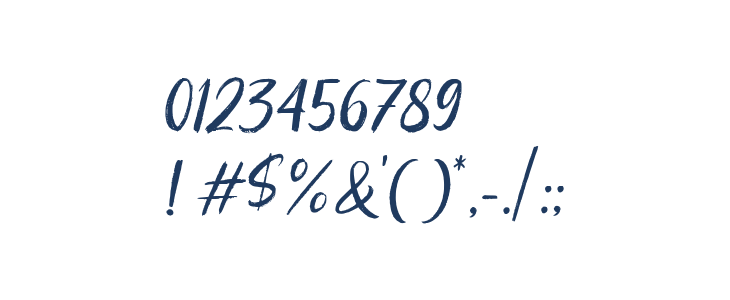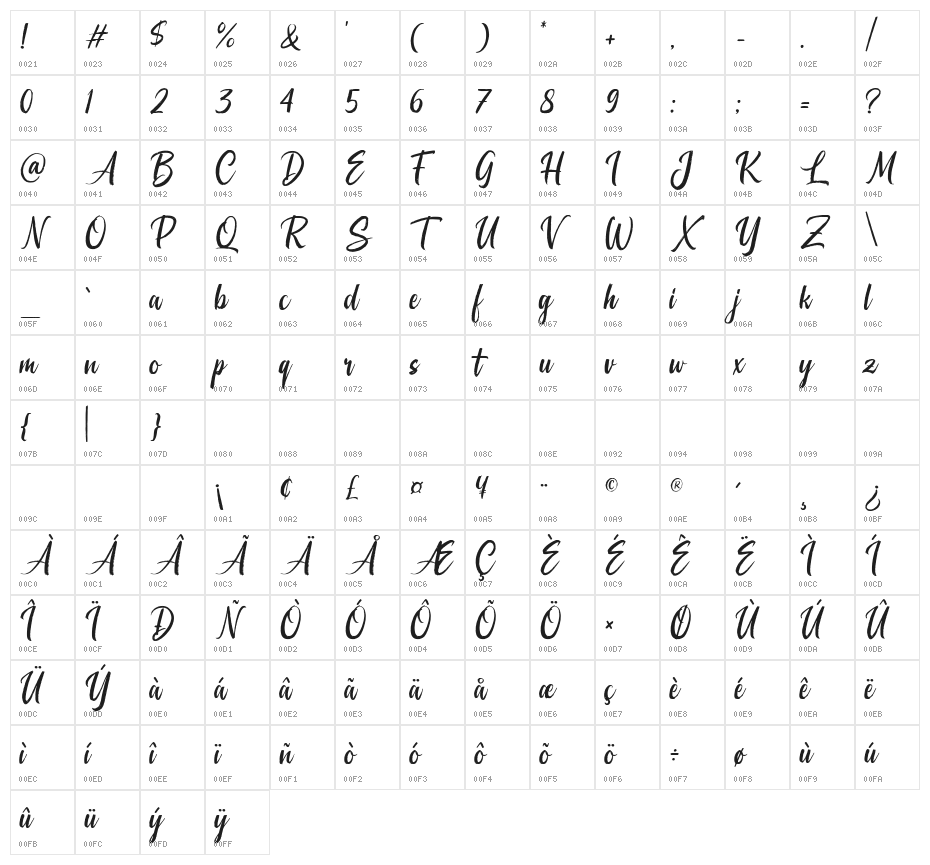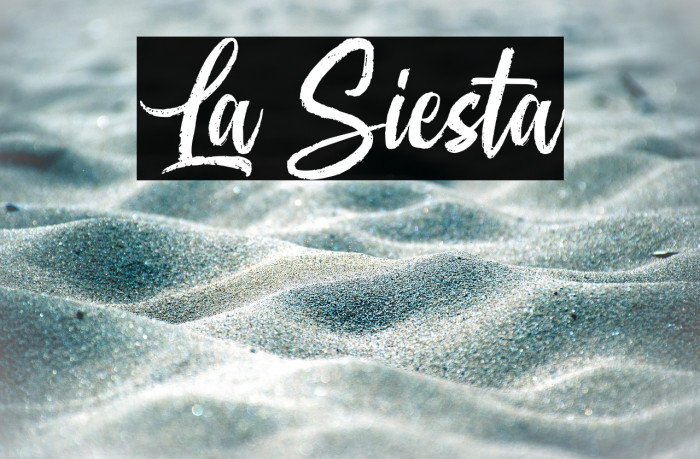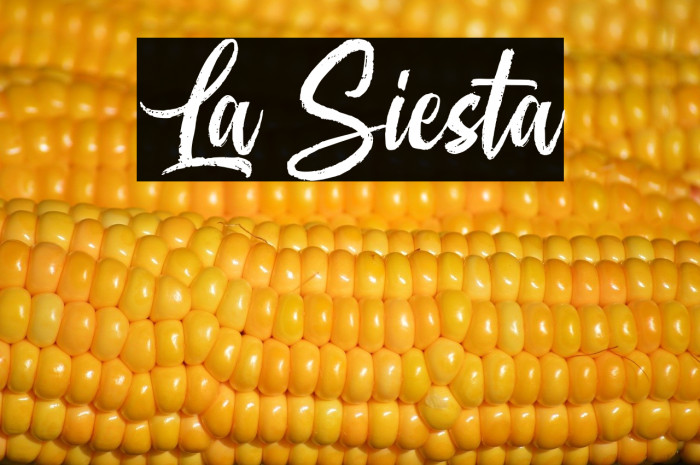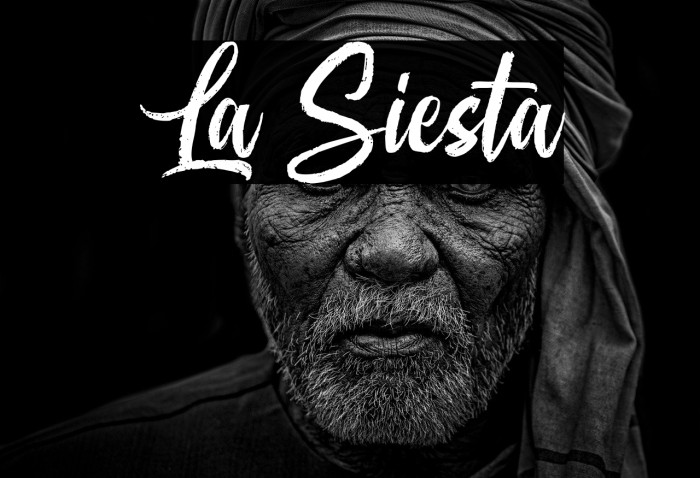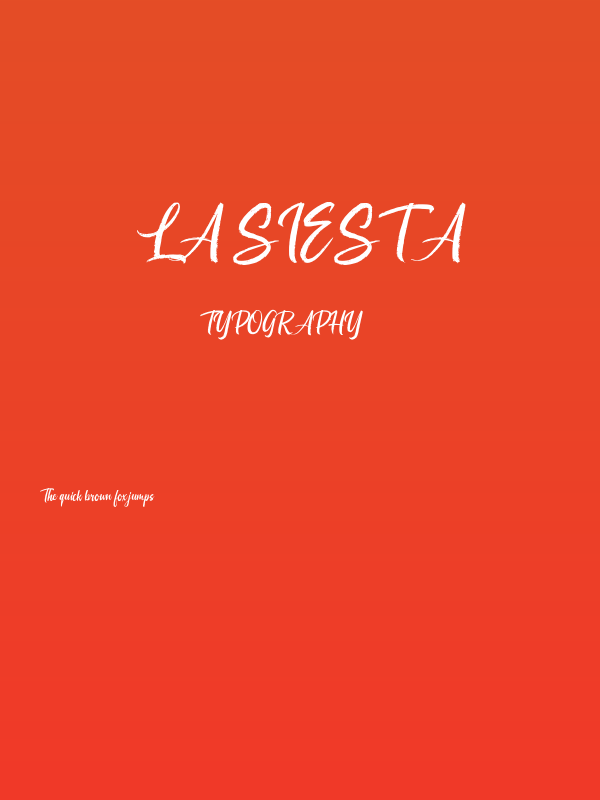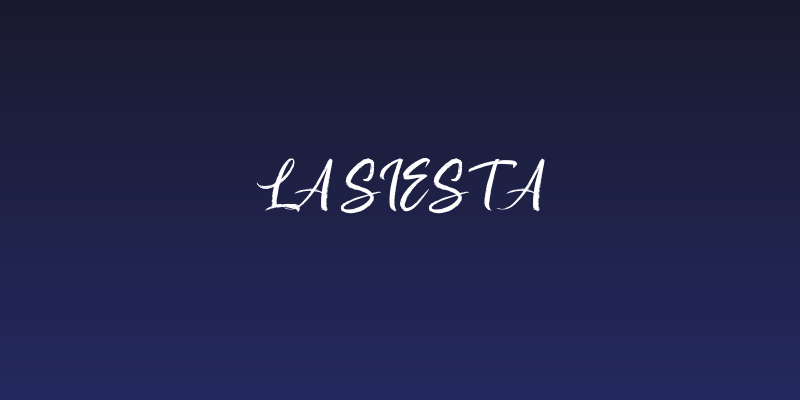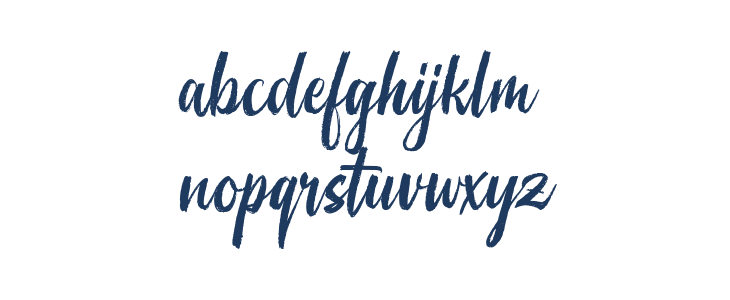
La Siesta Font
La Siesta Description
This font exudes a dynamic and energetic style, characterized by its bold, brush-like strokes that give it a handwritten appearance. The uppercase letters are tall and slightly slanted, adding a sense of movement and fluidity. The lowercase letters maintain a consistent flow, with some characters featuring distinctive loops and curves that enhance its artistic flair. Numbers are crafted with the same brush-like quality, ensuring uniformity across all characters. Special characters are integrated seamlessly, maintaining the overall aesthetic. This font is perfect for projects that require a personal touch or a creative, informal vibe.
| Proposed Projects | Ideal for branding, invitations, posters, and any creative projects needing a personal touch. |